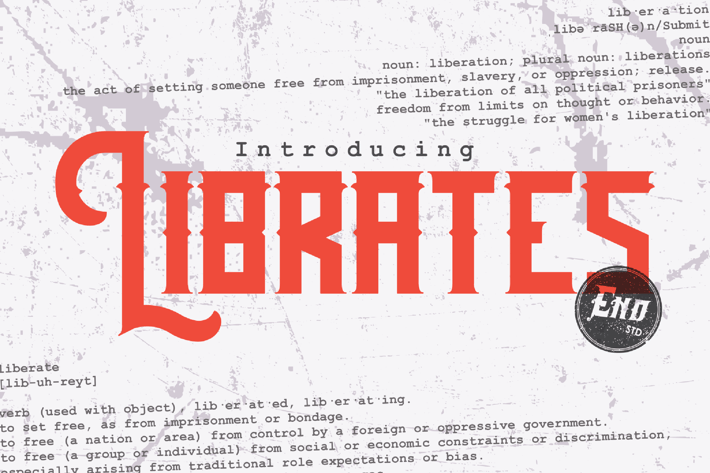
Librates Old | Ephemera Vintage Display Font
INTRODUCING Librates typeface
Librates is a strong typeface designed carefully for typography works, based on strong block, masculine and solid character. This typeface will be suited to every typography works need, perfect choice for logos, badges, clothing, signage, posters, labels and much more!